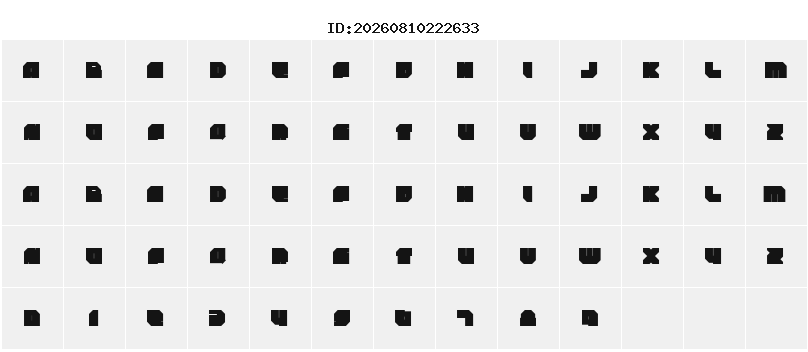
• Font Name: rockdafonkybit
• Designer: GRAFIK INDUSTRIES LTD.
About rockdafonkybit.ttf
rockdafonkybit.ttf is a modern, elegant sans-serif font designed for ultimate readability and visual harmony. Perfect for branding, headlines, web design, and print materials.